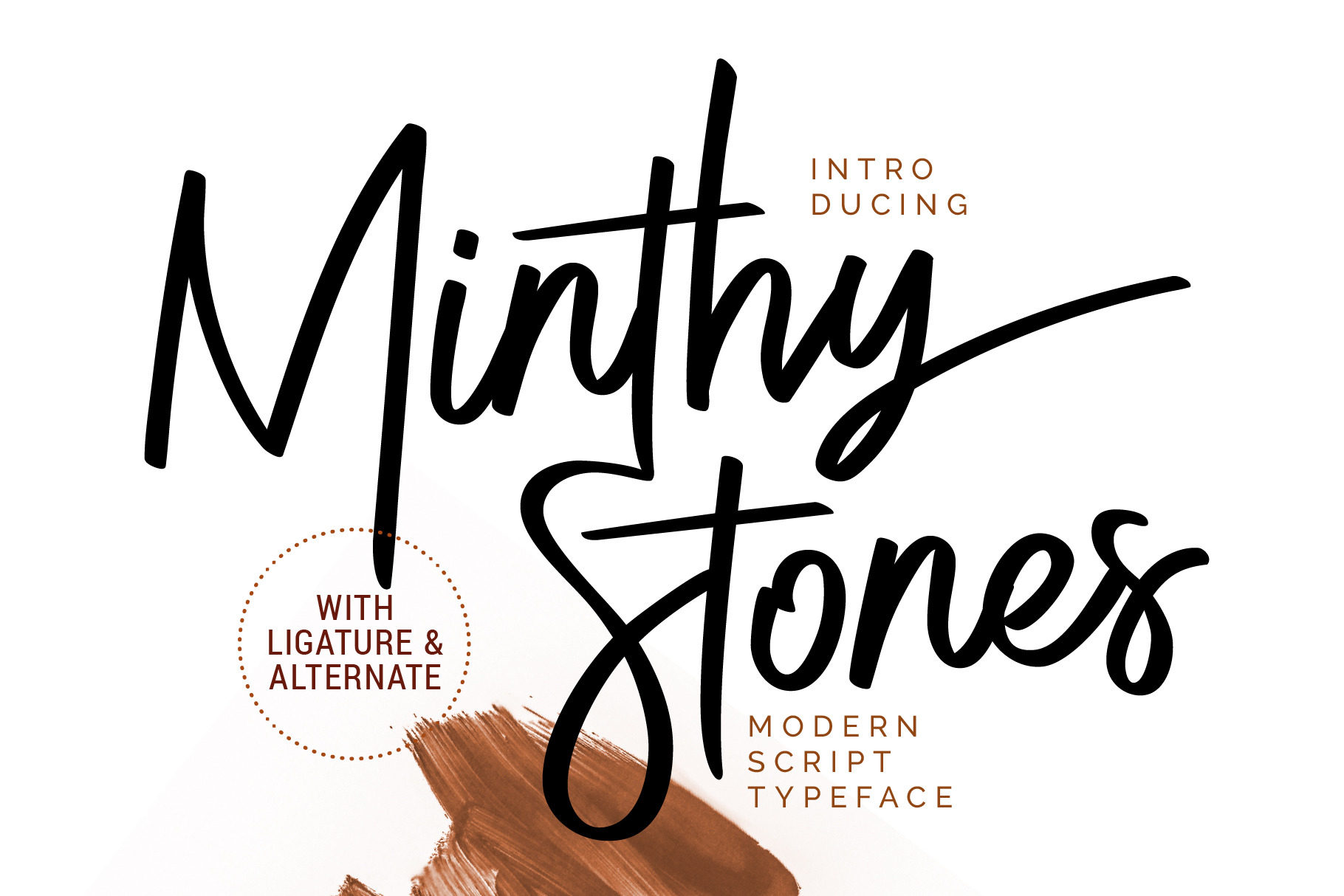
Minthy Stones Modern Script Font
Minthy Stones is a modern script typeface/font designed with carefully handcrafted. This perfectly made to be applied in logo or branding, stationery, books, packaging, fashion, magazines, t-shirt, novels, labels and many advertising purposes.
Features: Uppercase, Lowercase, Number, Punctuation, Symbol, Multilingual, Ligature, Alternate, Swash.